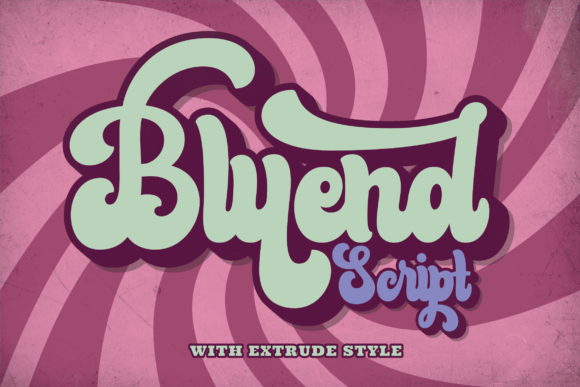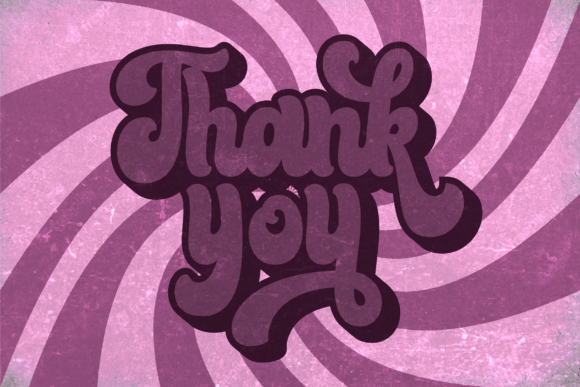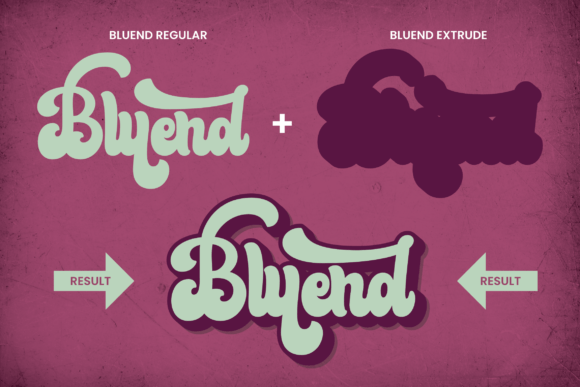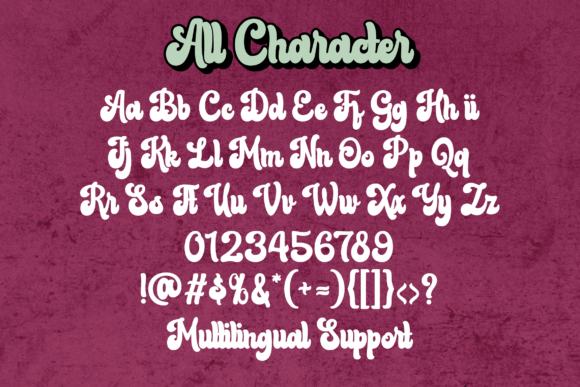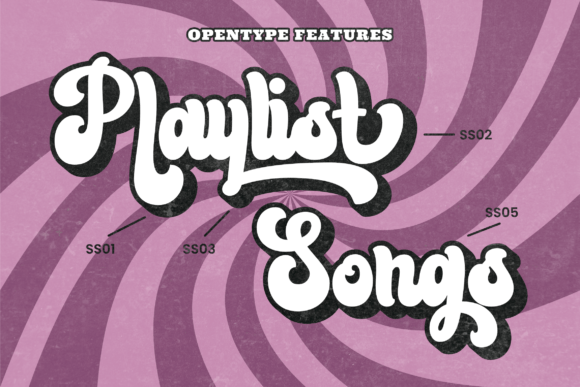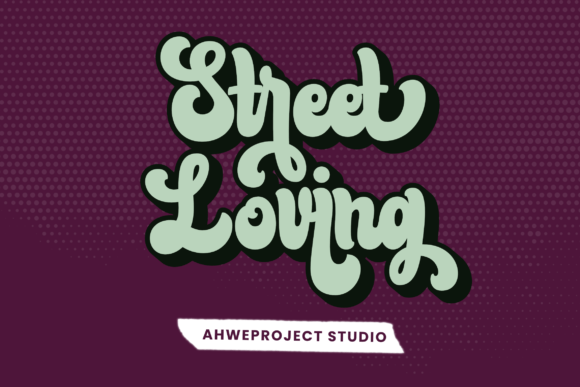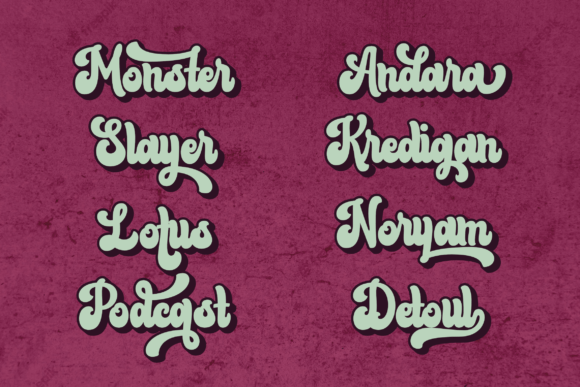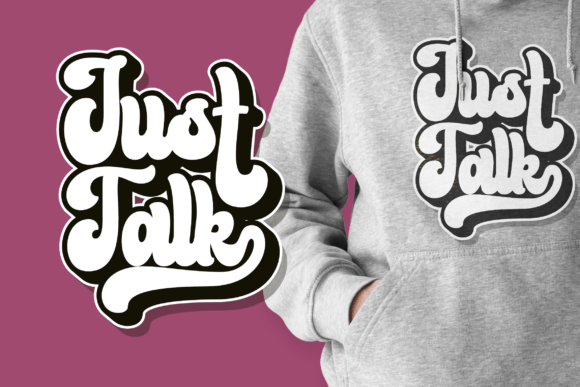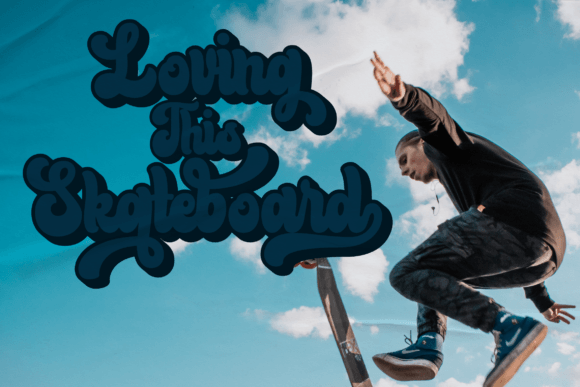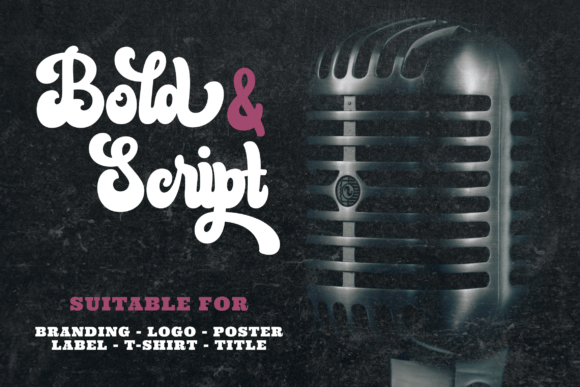
Bluend Font
Bluend Font is a bold retro-style script display typeface that bursts with energy, confidence, and nostalgic charm. Inspired by groovy aesthetics from the ’70s and ’80s, it features thick strokes, expressive curves, and a rhythm that keeps your audience engaged.
This retro font doesn’t just look fun—it brings your ideas to life. Whether you’re working on branding, posters, or social media graphics, Bluend helps you stand out. Thanks to its bold personality, it instantly grabs attention and leaves a memorable impression.
🎨 A Font Made for Creative Freedom
You can easily use Bluend Font across various projects:
• Retro-style branding and logos
• Eye-catching posters and flyers
• Vintage-themed product packaging
• Apparel prints and merchandise
• Bold social media content and titles
Because of its dynamic design, it fits perfectly in layouts that require movement, creativity, and retro flair. Furthermore, its readability makes it ideal even for busy designs or layered backgrounds.
✨ Customize with Ease
In short, if you’re searching for a font that mixes vintage charm with bold style, Bluend is the perfect choice. Don’t just design—make a statement with Bluend.